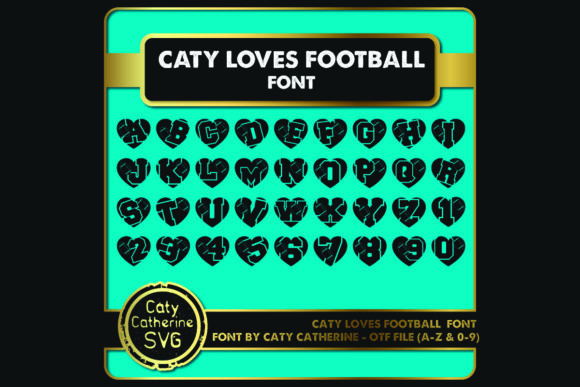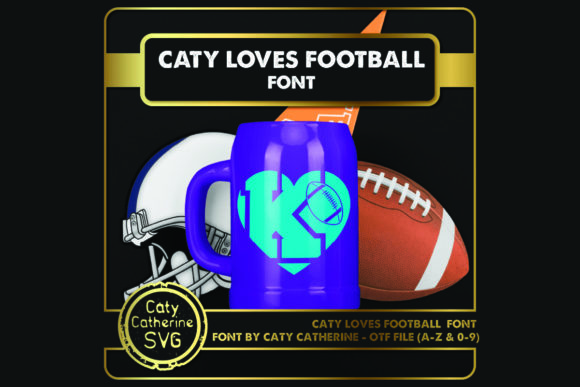
Introduction to Caty Loves Football Font
Caty loves football is a sporty and cool decorative font.
It features unique characters and some lovely football accents, perfect for sports magazines, posters, game covers, and many other crafty ideas .